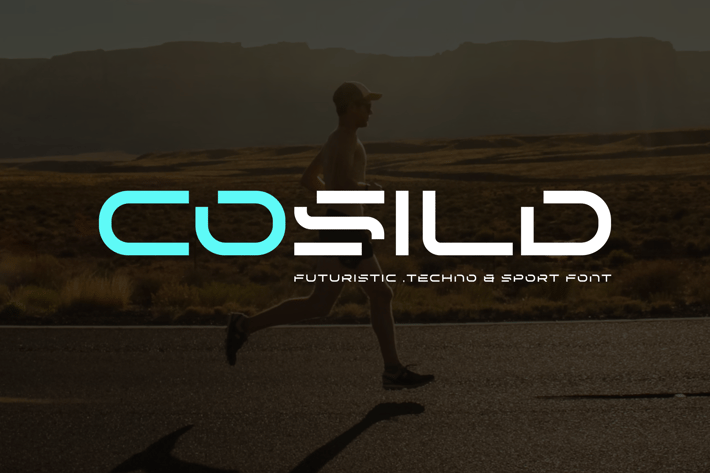
Cosild - Futuristic Modern Font
Introducing our new product Cosild Font - Futuristic Modern Font
Cosild Font - Modern Font is a bold and authentic display font. The font is suitable for any branding project like logo,
t-shirt printing, esport, and many more. outstanding in a wide range of contexts.
* Cosild Uppercase